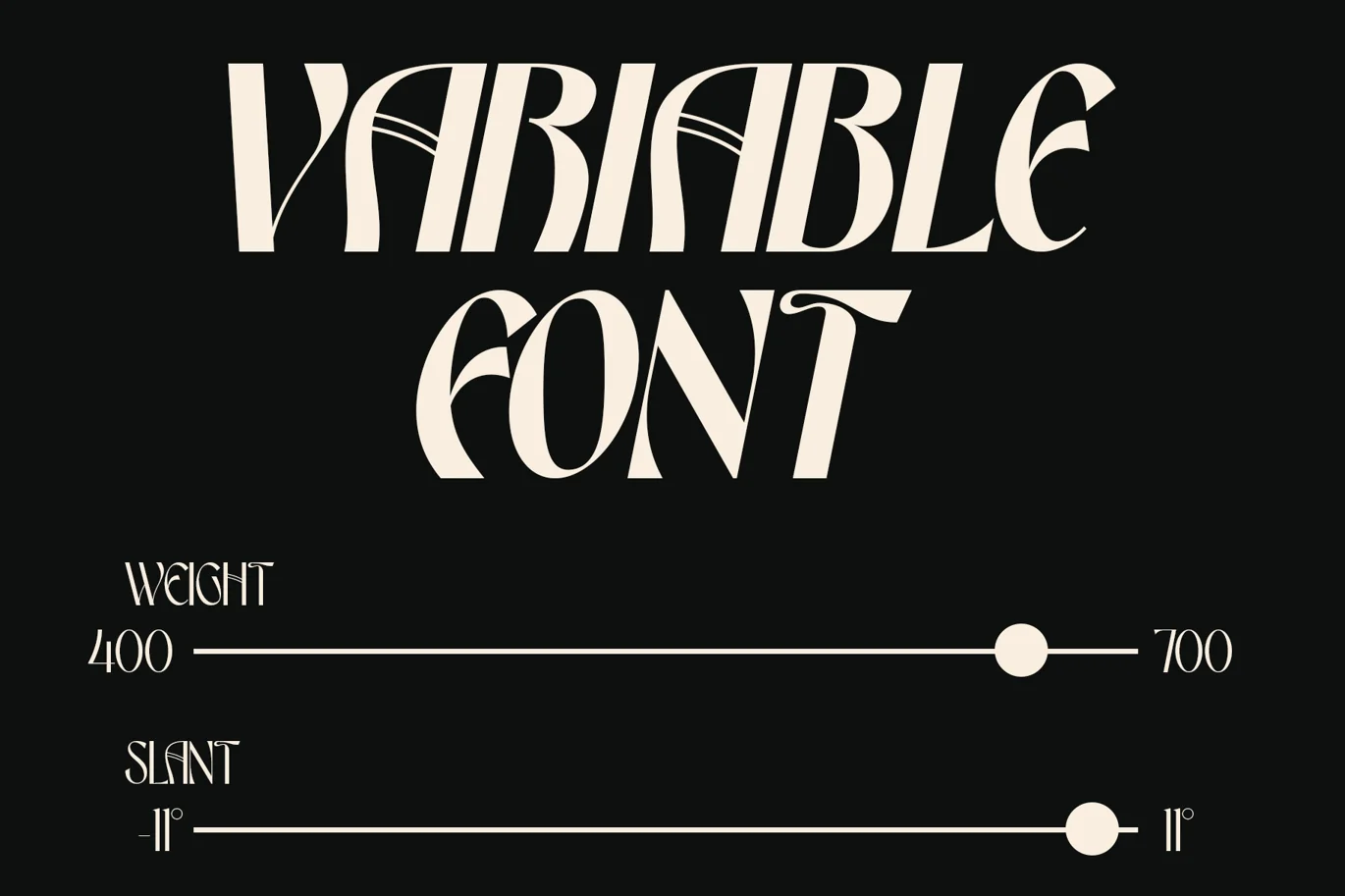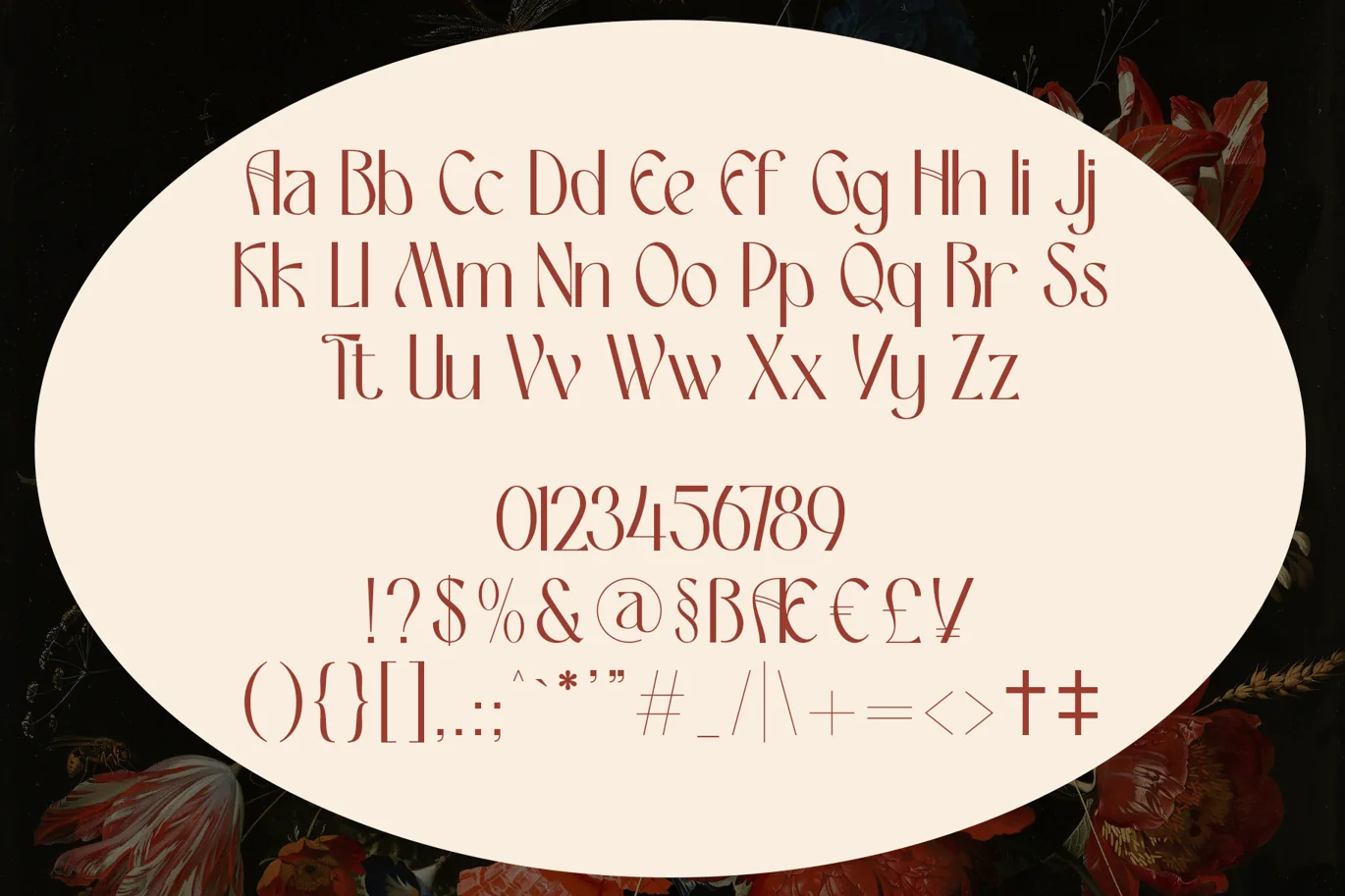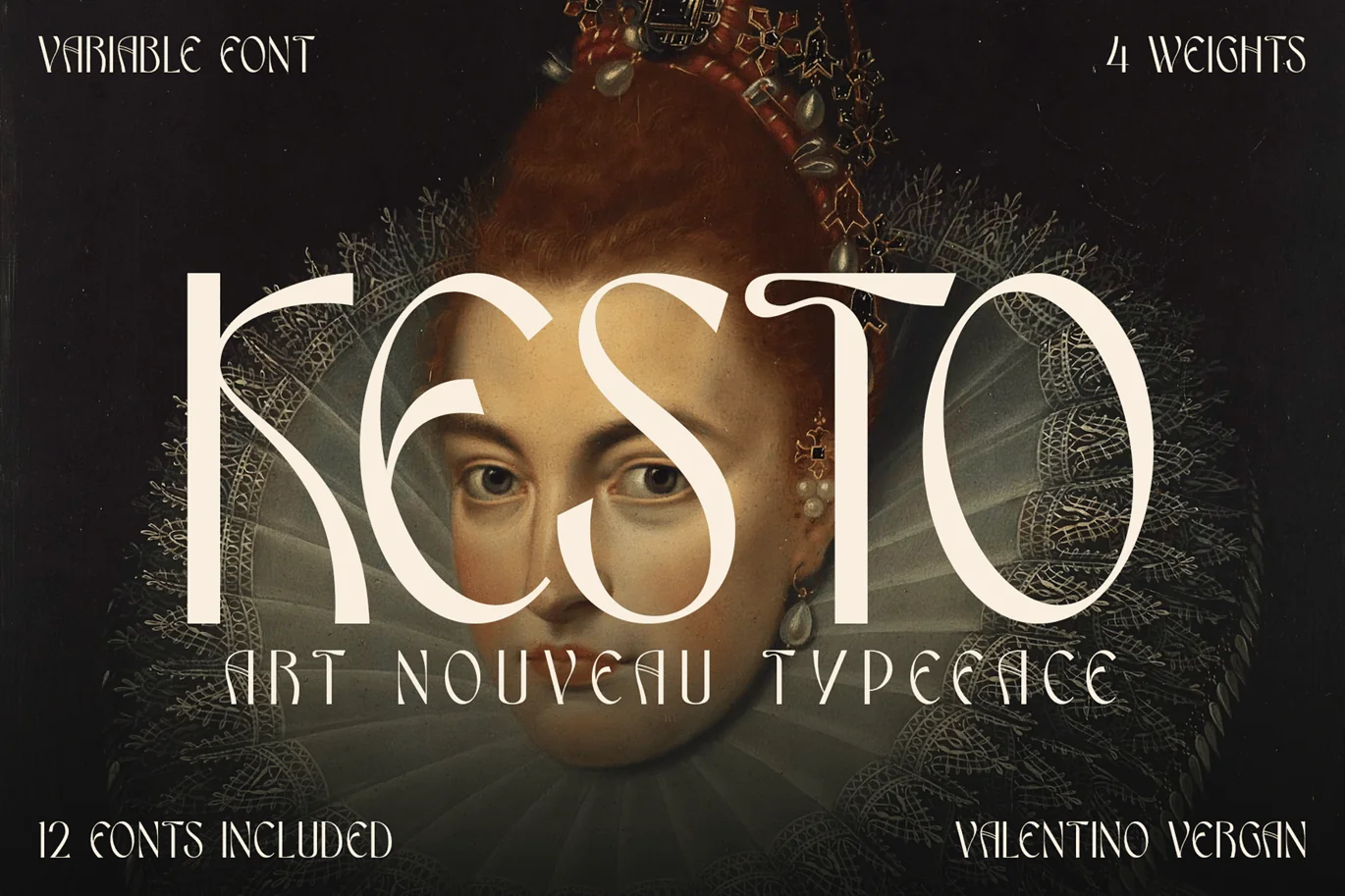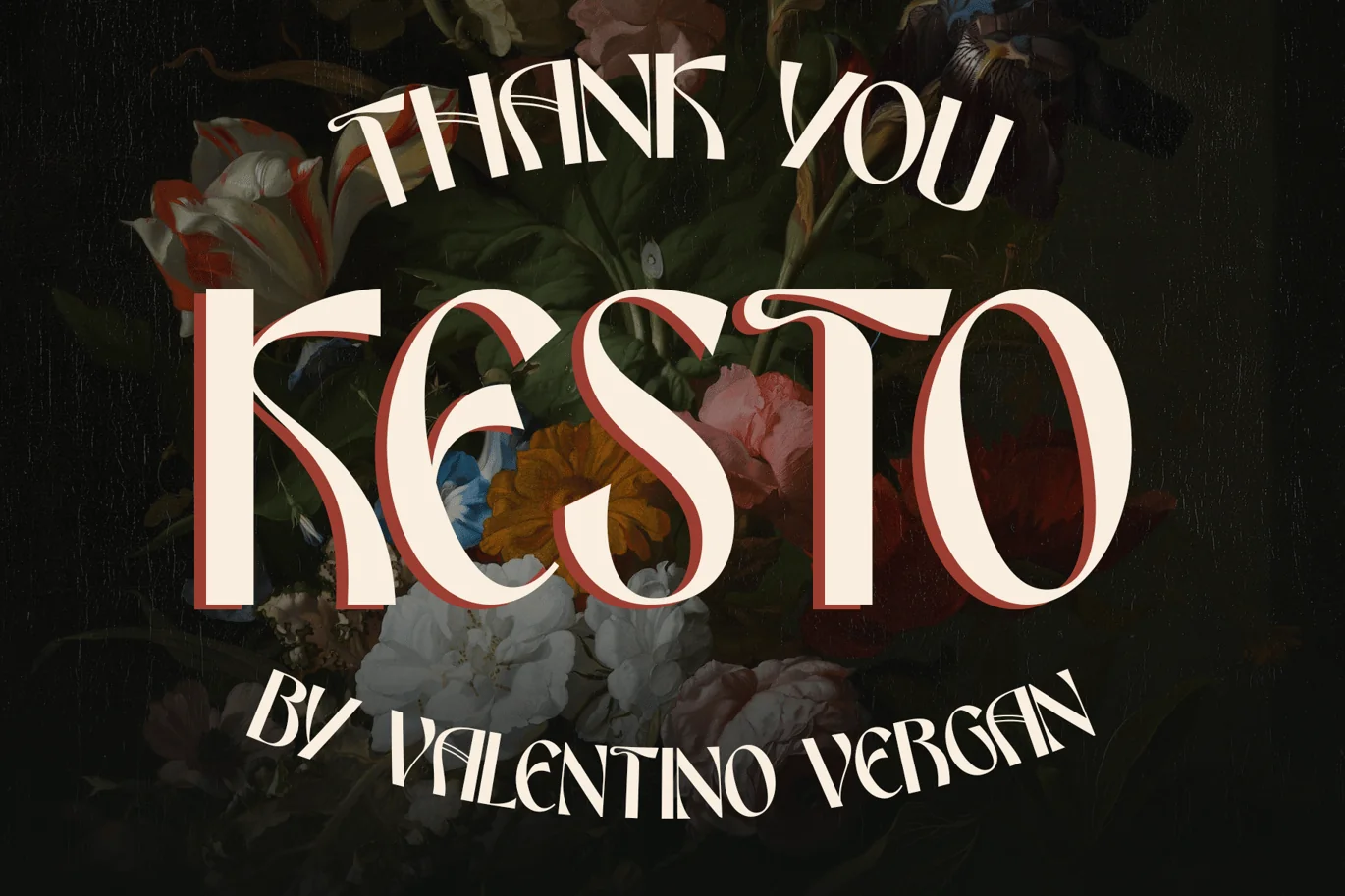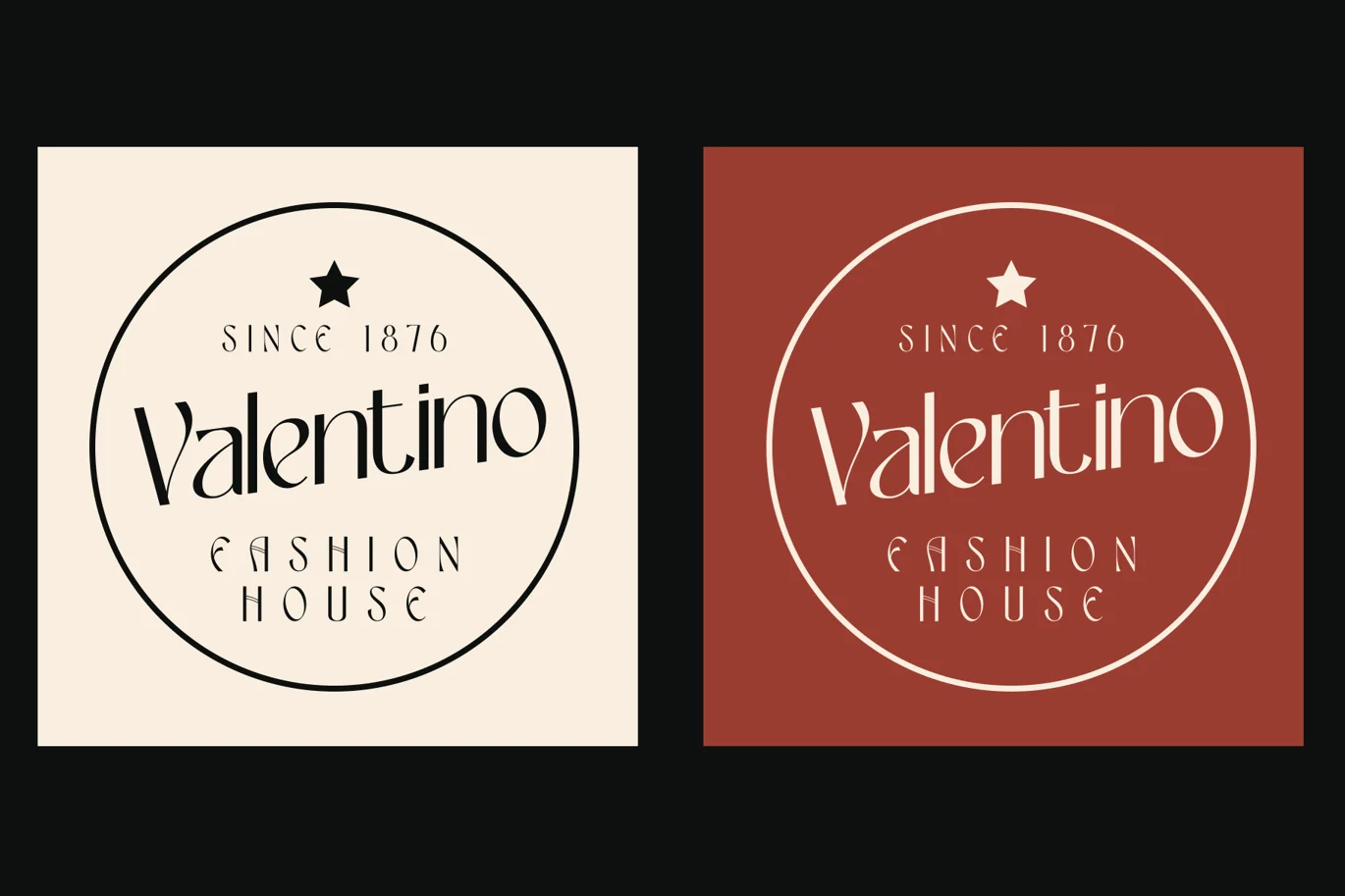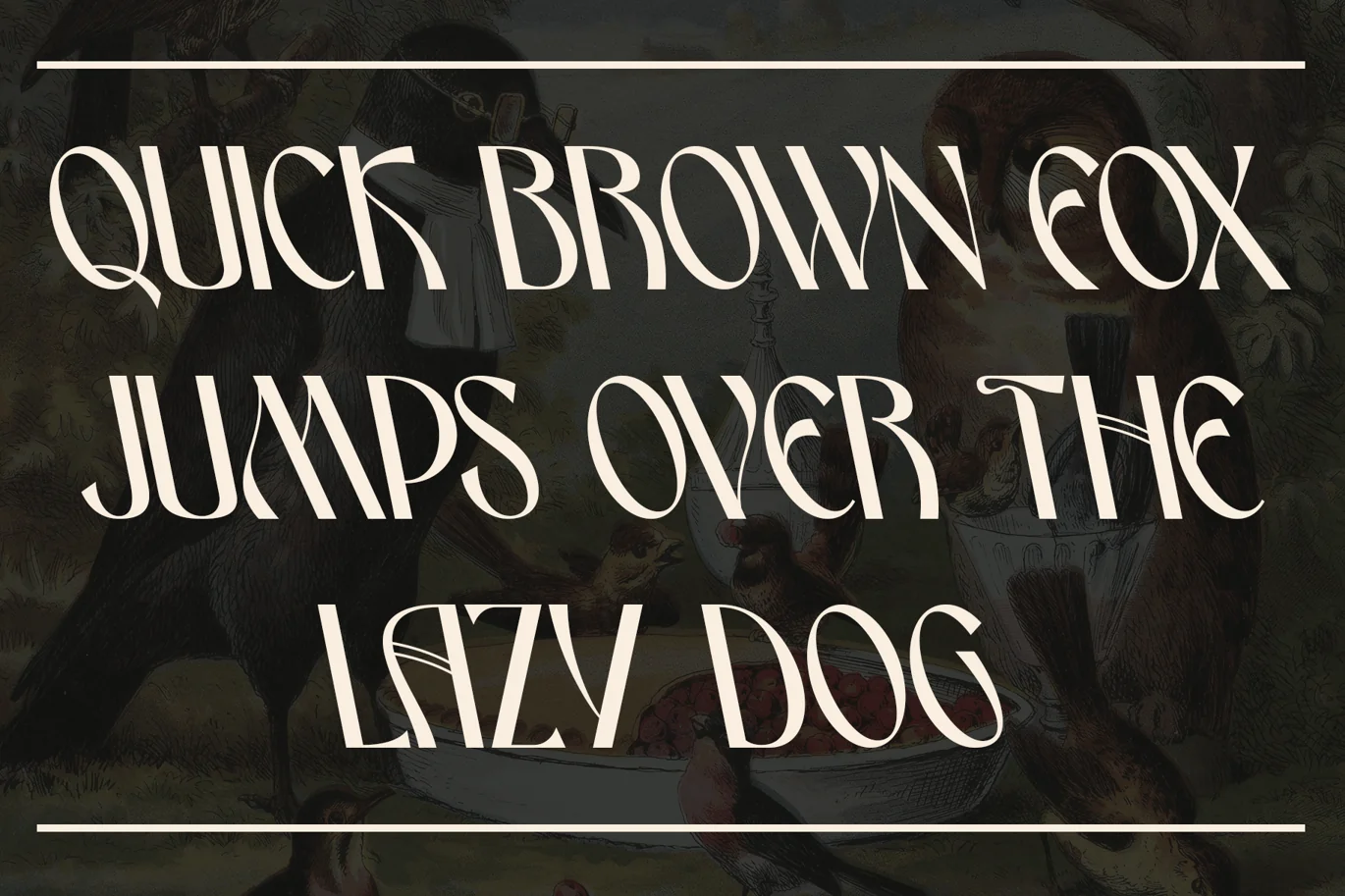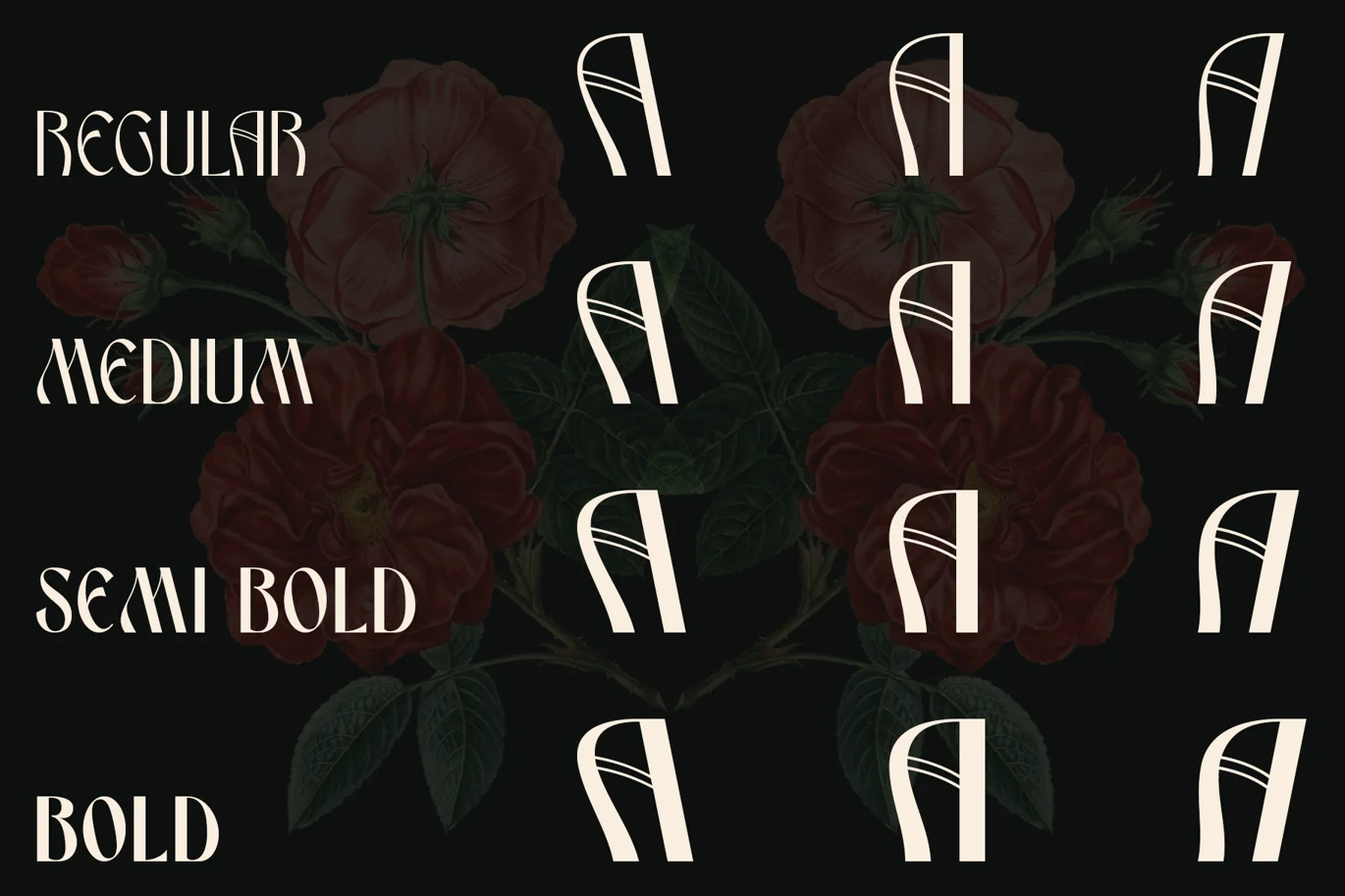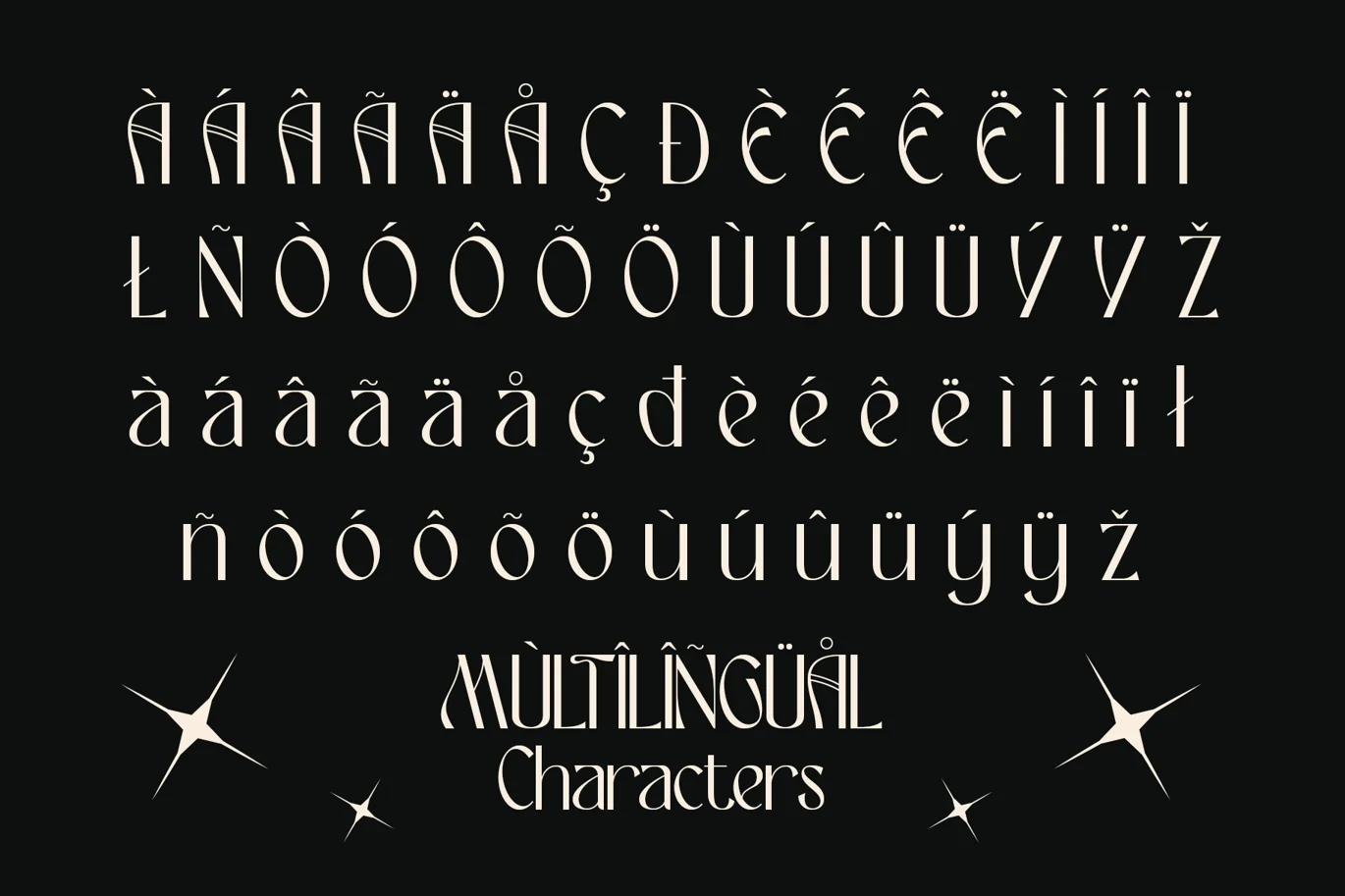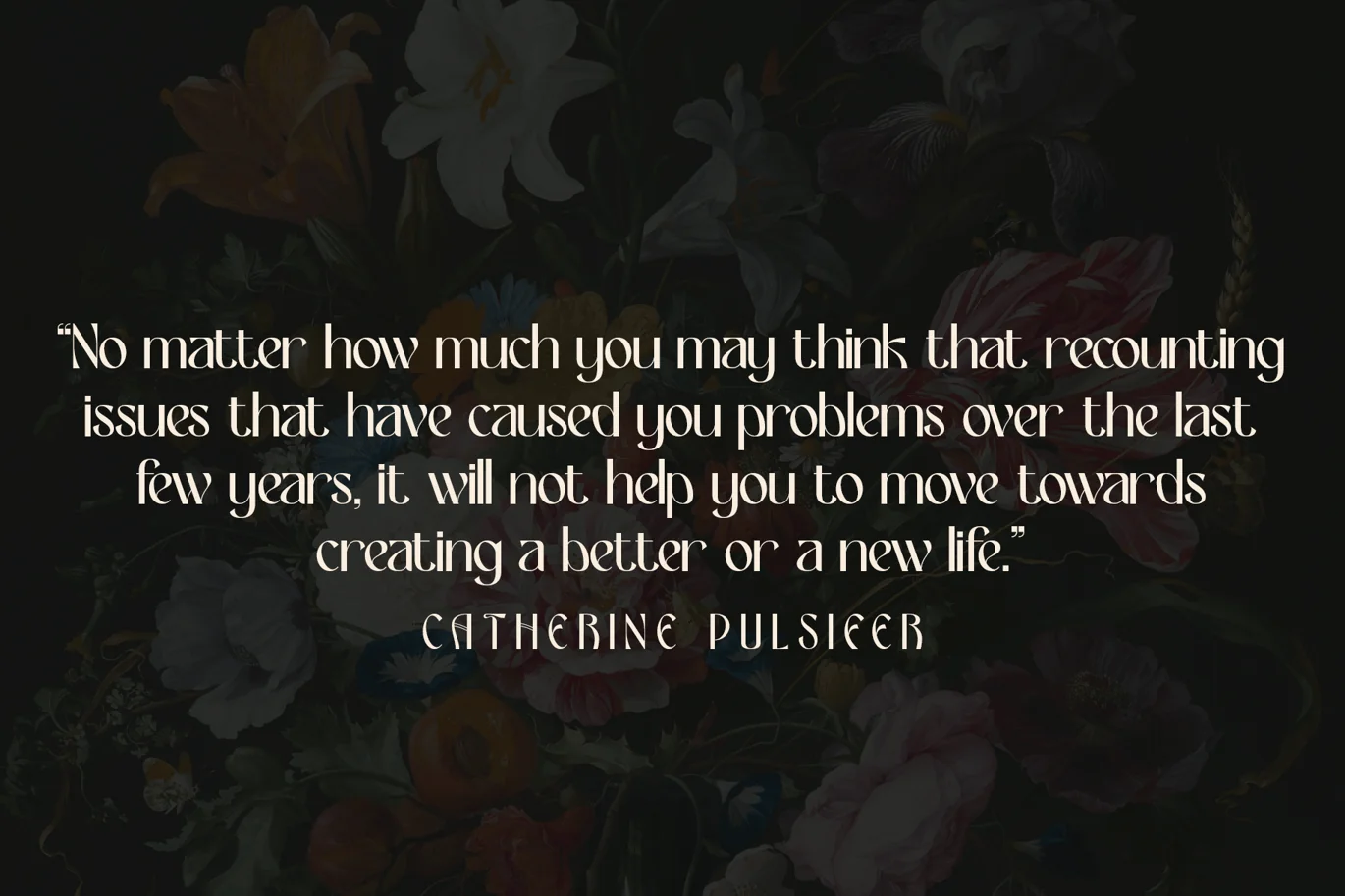
Kesto – Variable Nouveau Font Family
Kesto is an elegant Art Nouveau style typeface. The idea for the Kesto came from the early Nouveau type designs. Kesto is designed with creative letters, which makes it perfect for creating nostalgic and retro designs such as: posters, magazines, logos and much more.
Kesto also has a variable version, which makes it easy to manually adjust the weight and slant.